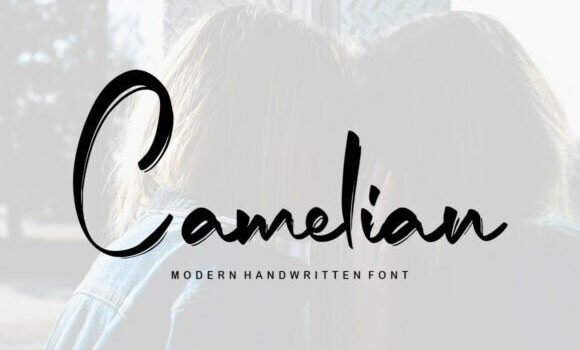
Camelian Font – Free Download Introduction to Camelian Font Camelian is a dainty and flowing handwritten font. 📸 Preview Gallery 4 images 📌 Product Name Camelian Font 👤 Author Daily Design 📂 Category Explore ⬇️ Download Camelian Font FREE Free